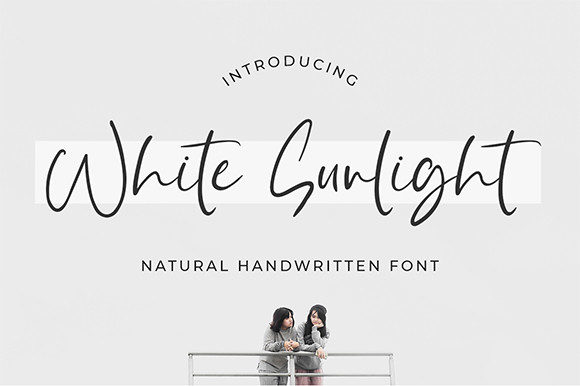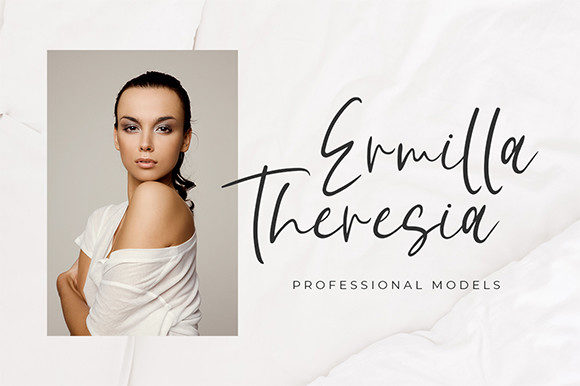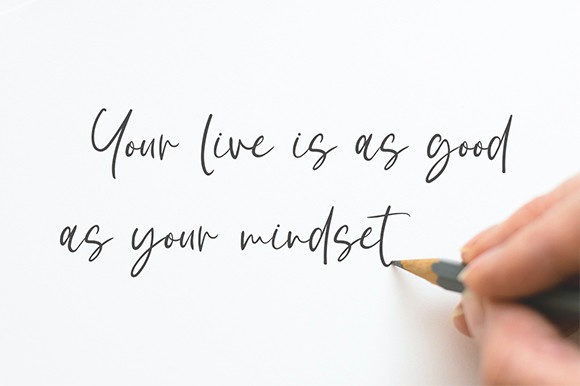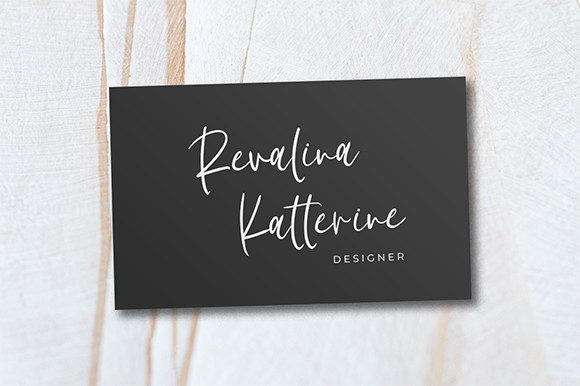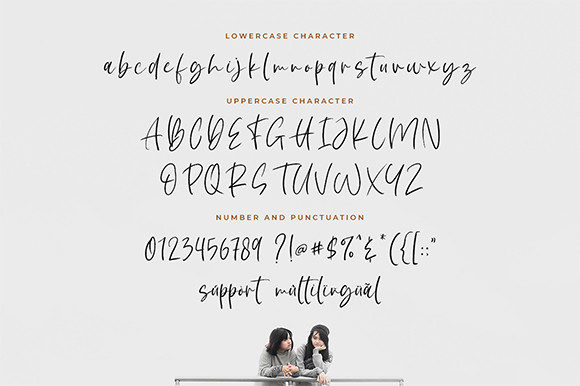
White Sunlight Font
About White Sunlight Font
White Sunlight is a relaxed and casual handwritten font. This stylish font will look gorgeous on a variety of design ideas. It will add a joyful and romantic touch to each of your projects!